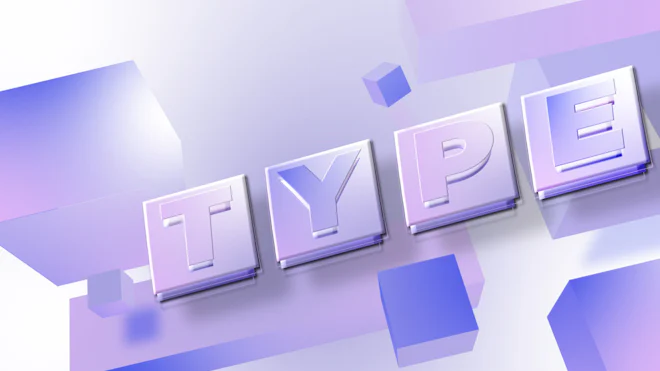
This After Effects template contains a stylishly animated text animation with animated isometric shape layers. It features the entire English alphabet, special characters, and numbers. You can edit and adjust the colors to suit your needs. A video tutorial is included in the package. Download it today. No plugins are required.